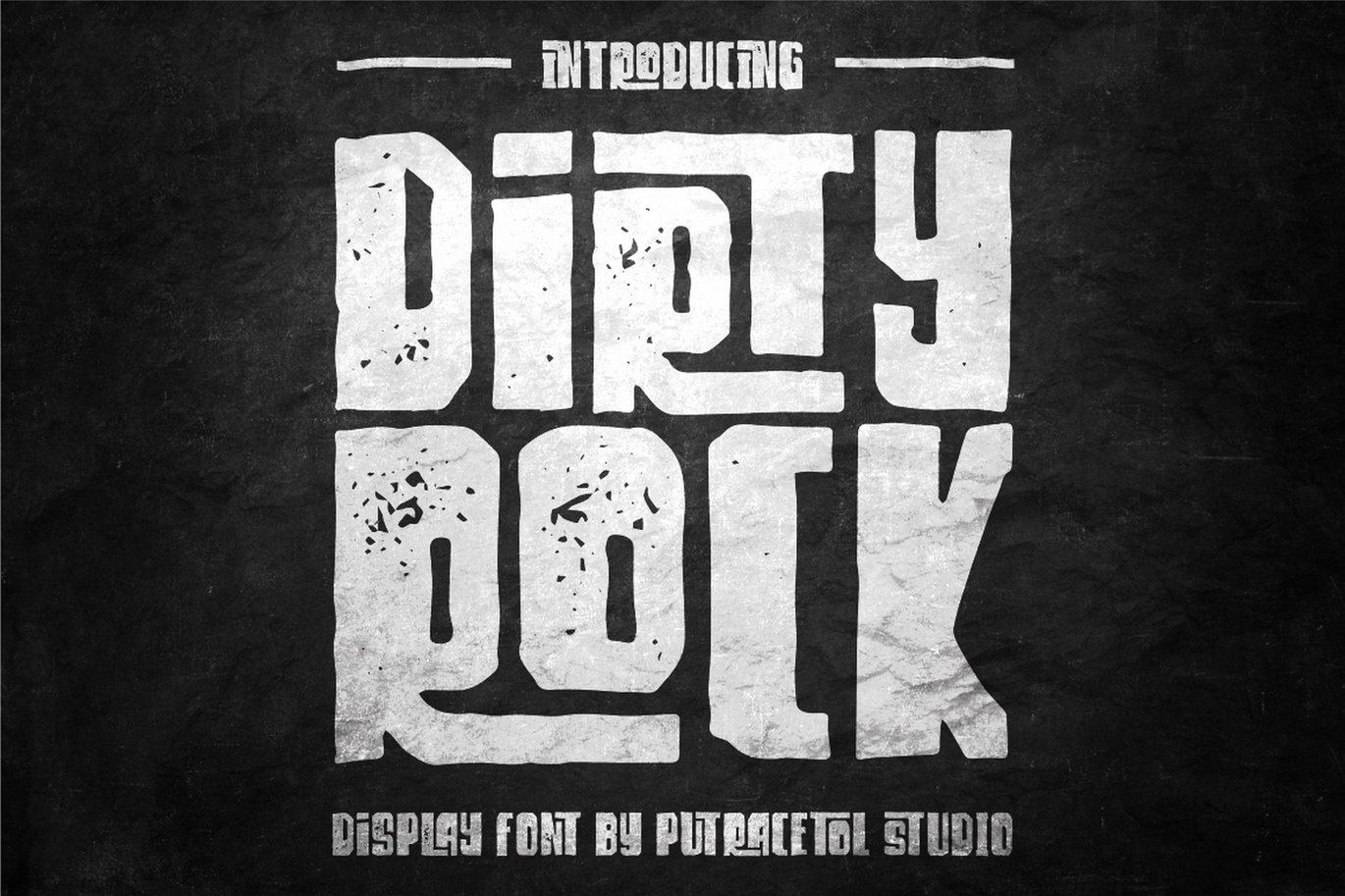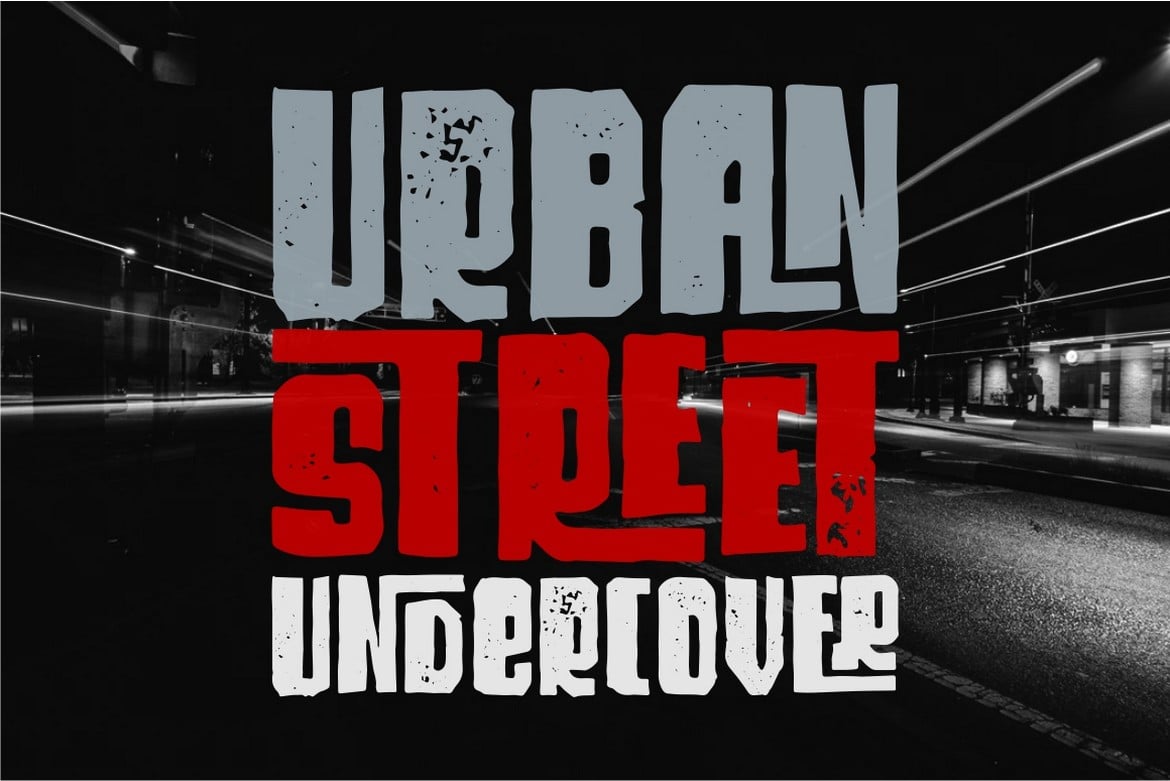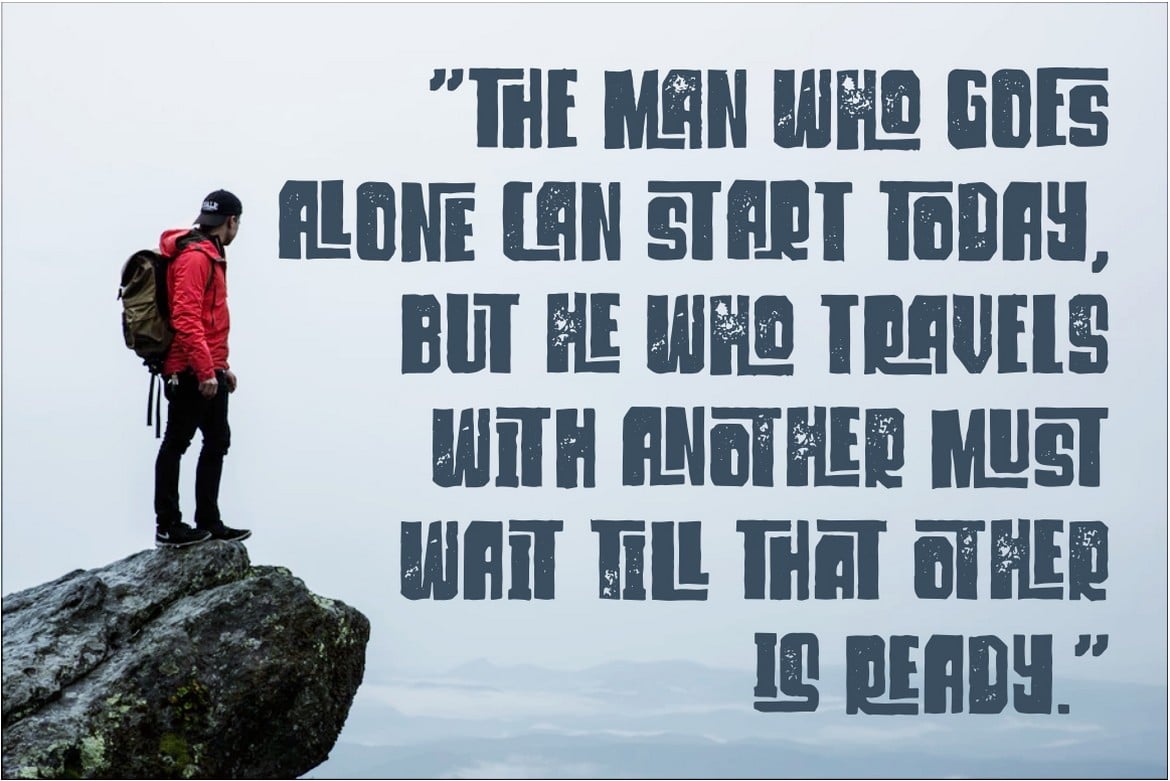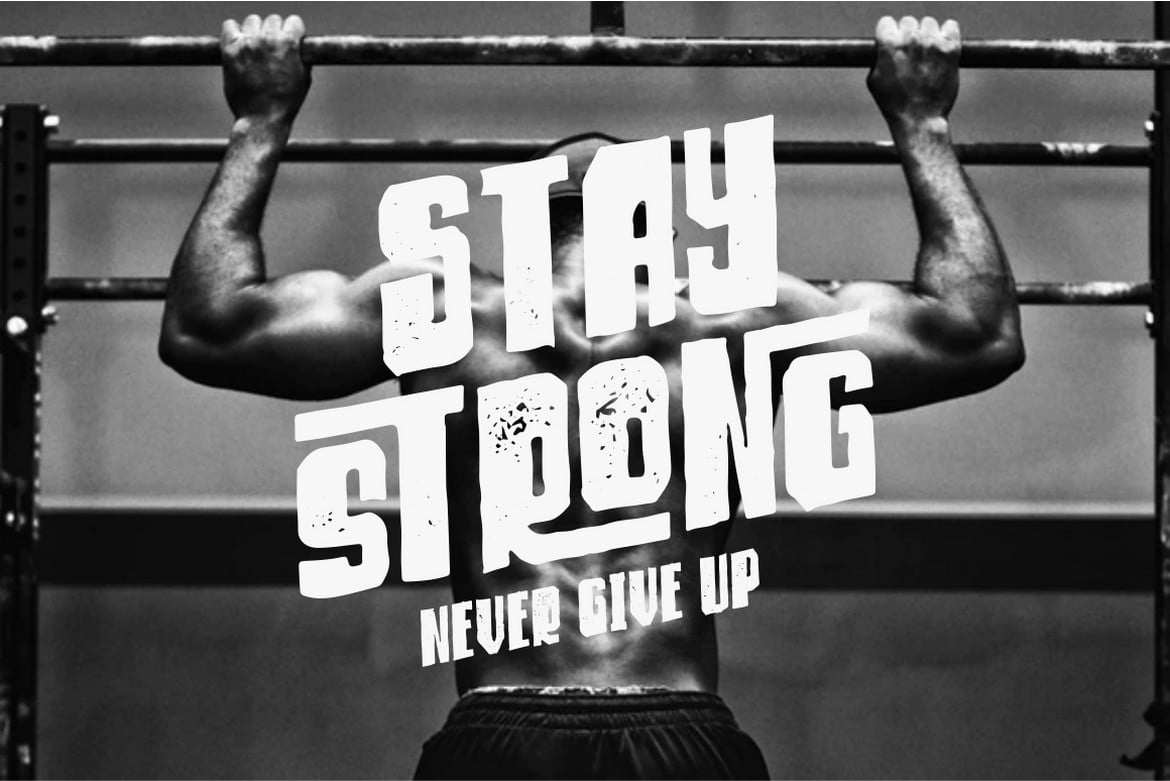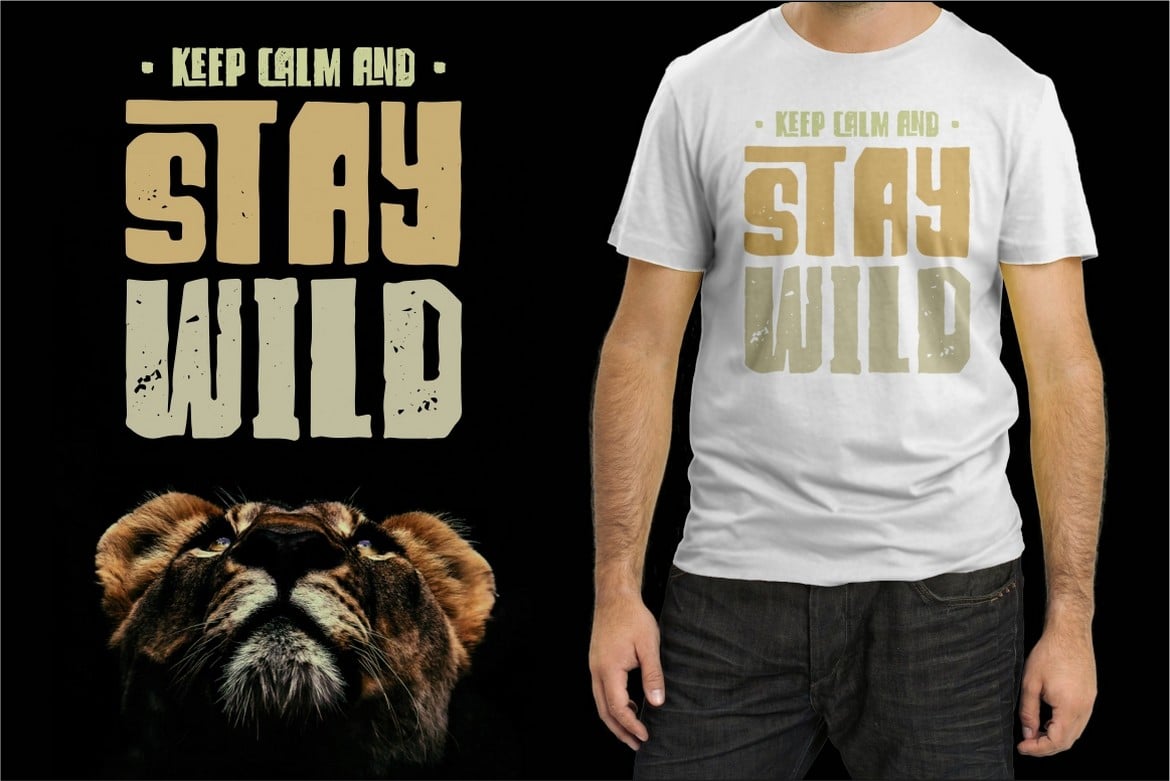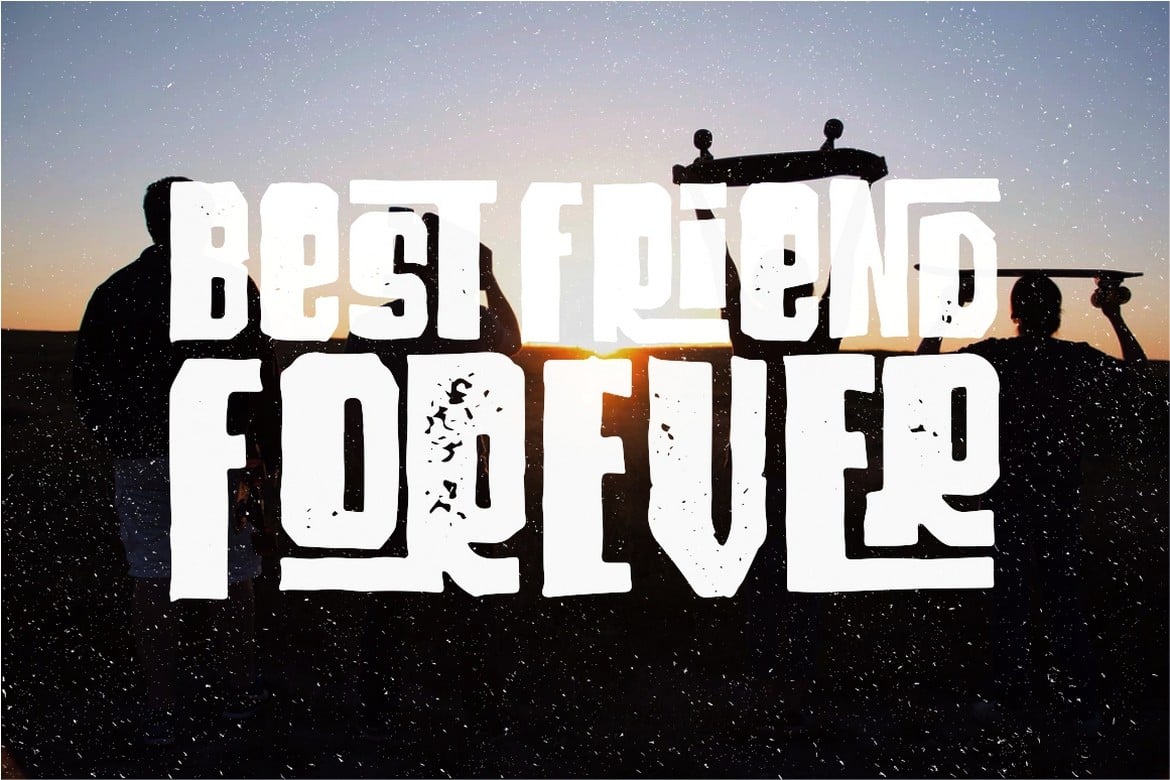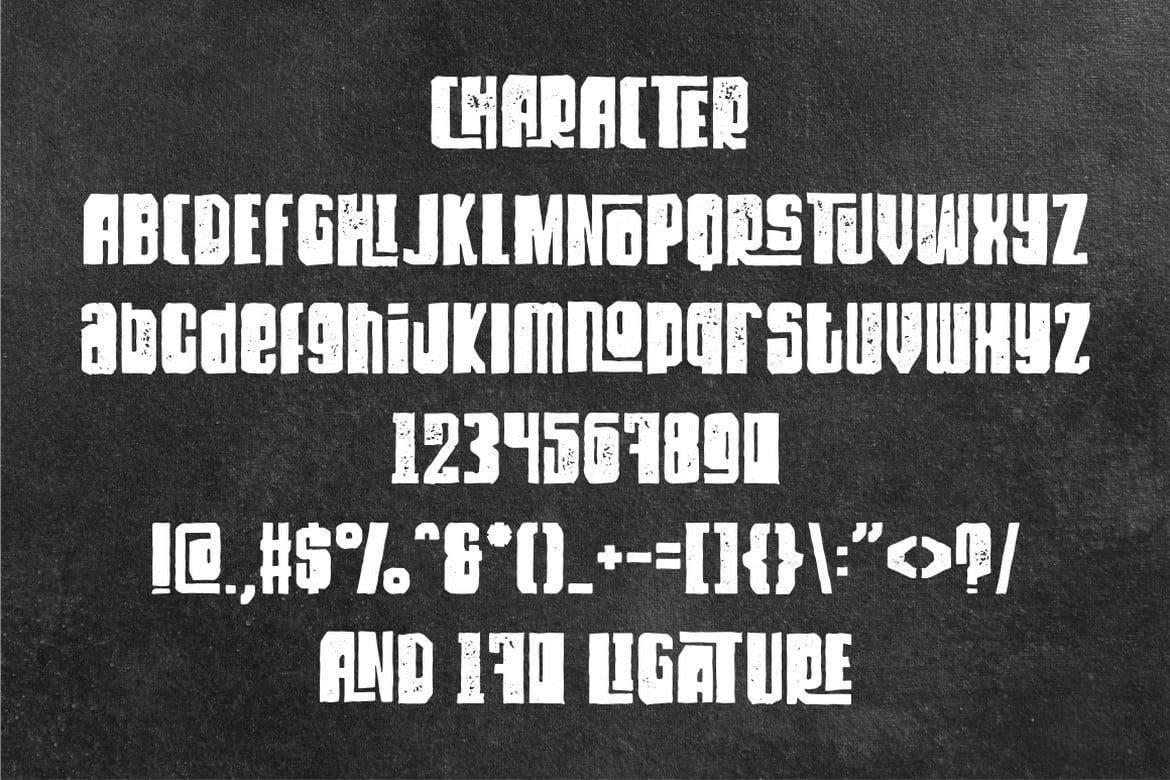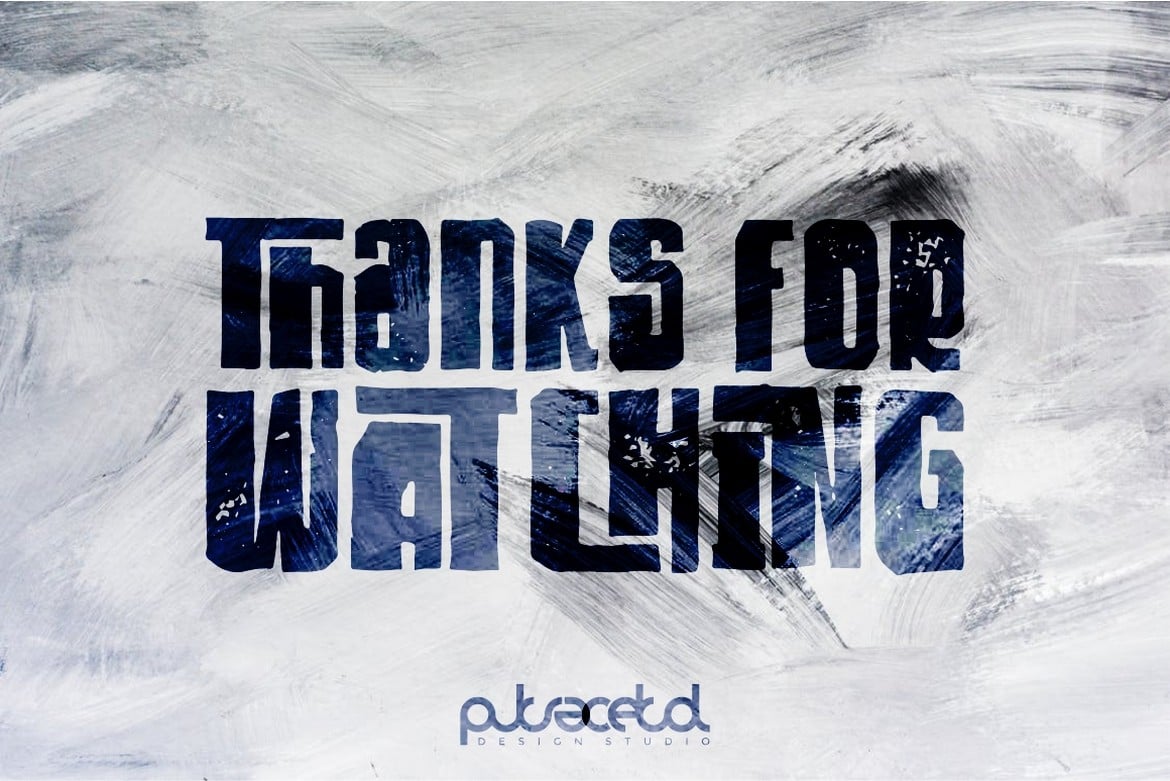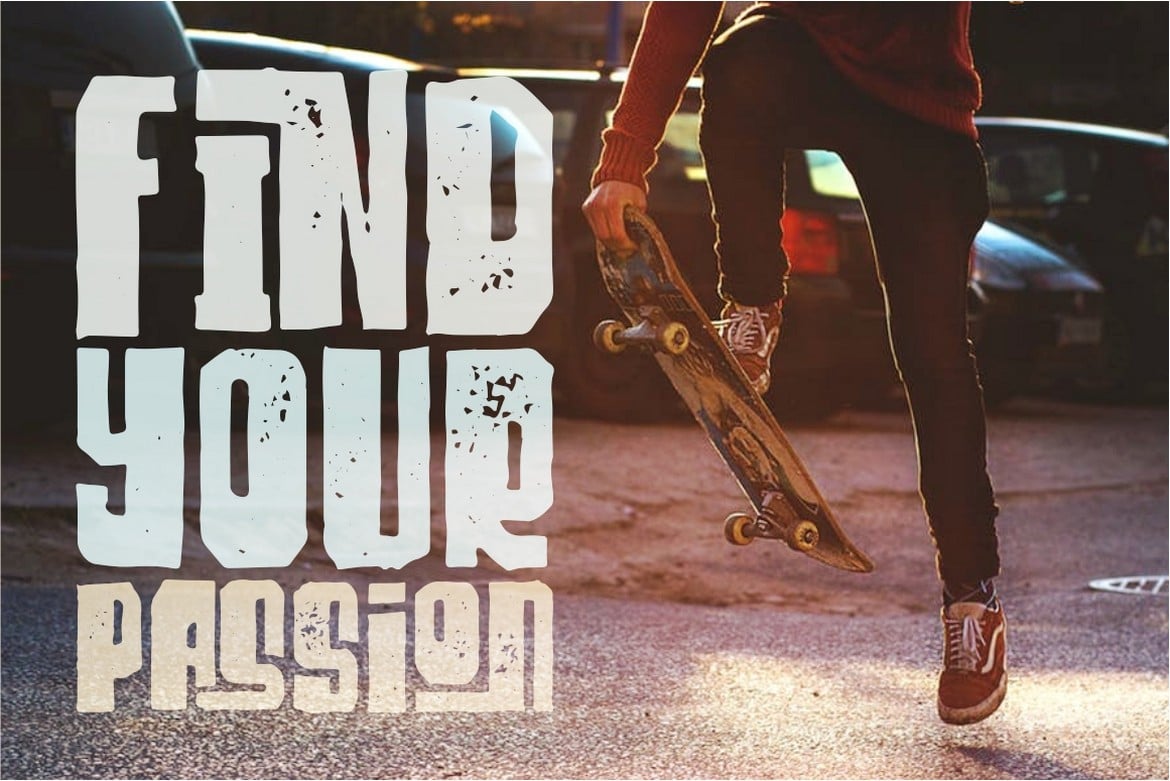
Dirty Rock – Unique Display Font
** DIRTY ROCK **
Introducing DIRTY ROCK is an display font. Dirty and rock!!
This tyepeface is Unique and very suitable for logos, Tshirt, apparel, quote, handwritten quotes, product packaging, tittle header, poster, merchandise, social media, labels, branding & greeting cards.